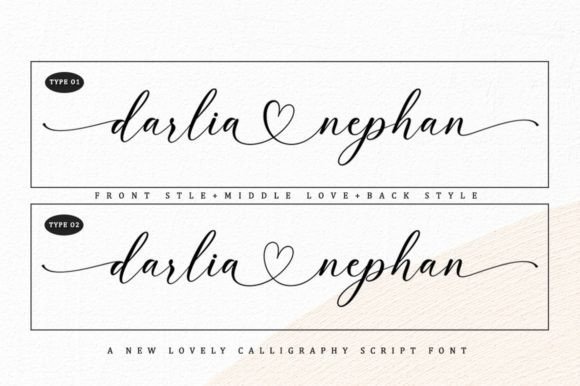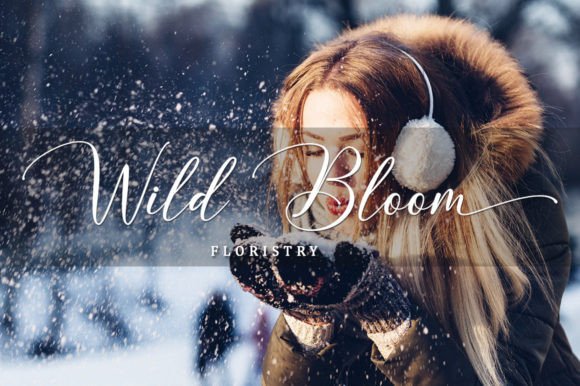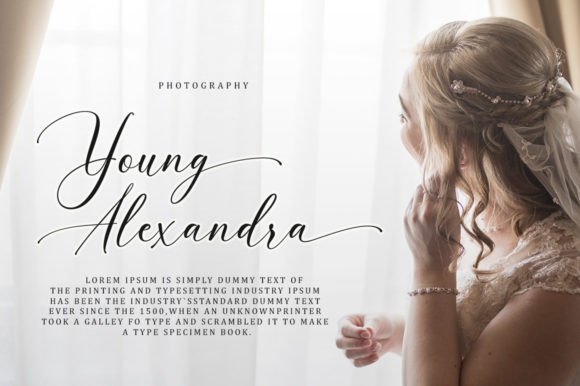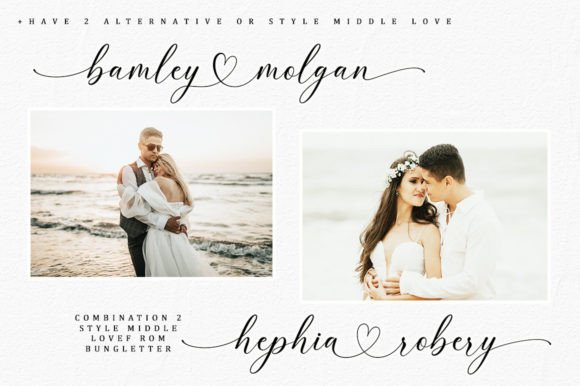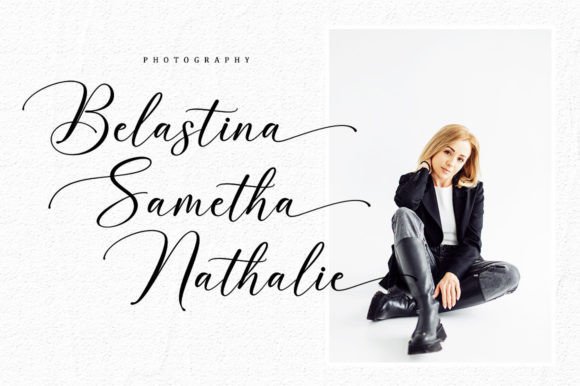
About Darlia Nephan Font
Darlia Nephan stands as a beautiful and delicately crafted handwritten font, distinguished by its unique feel and stunning impact. With an ethereal lightness, this font possesses the power to infuse a luxurious spark into any design project you embark upon. Darlia Nephan is more than just a typeface; it’s a key element that elevates the aesthetic of your creations, adding a touch of sophistication and allure.
The unique feel of Darlia Nephan sets it apart, creating an enchanting visual experience. Its light and flowing strokes contribute to an overall sense of elegance, making it ideal for projects where a luxurious touch is desired.
Whether you’re designing invitations, crafting branding materials, working on editorial layouts, or engaging in any creative endeavor, Darlia Nephan has the ability to transform the ordinary into the extraordinary. It becomes a visual statement that captivates attention and leaves a lasting impression.
The font’s impact is not just visual; it’s also functional. The PUA encoding ensures ease of access to all glyphs and swashes. This feature enhances the user experience, allowing for effortless customization and personalization of your designs. Darlia Nephan becomes a versatile tool that adapts to your creative vision.
Imagine the font gracing your designs, imparting a luxurious aura to everything it touches. From logos that demand attention to editorial layouts that require a refined touch, Darlia Nephan becomes the elegant brushstroke that adds finesse and sophistication.
In summary, Darlia Nephan is not just a font; it’s a design asset that brings beauty, lightness, and a touch of luxury to your projects. Let it be the choice that sparks brilliance in your creations, making them visually captivating and memorable.